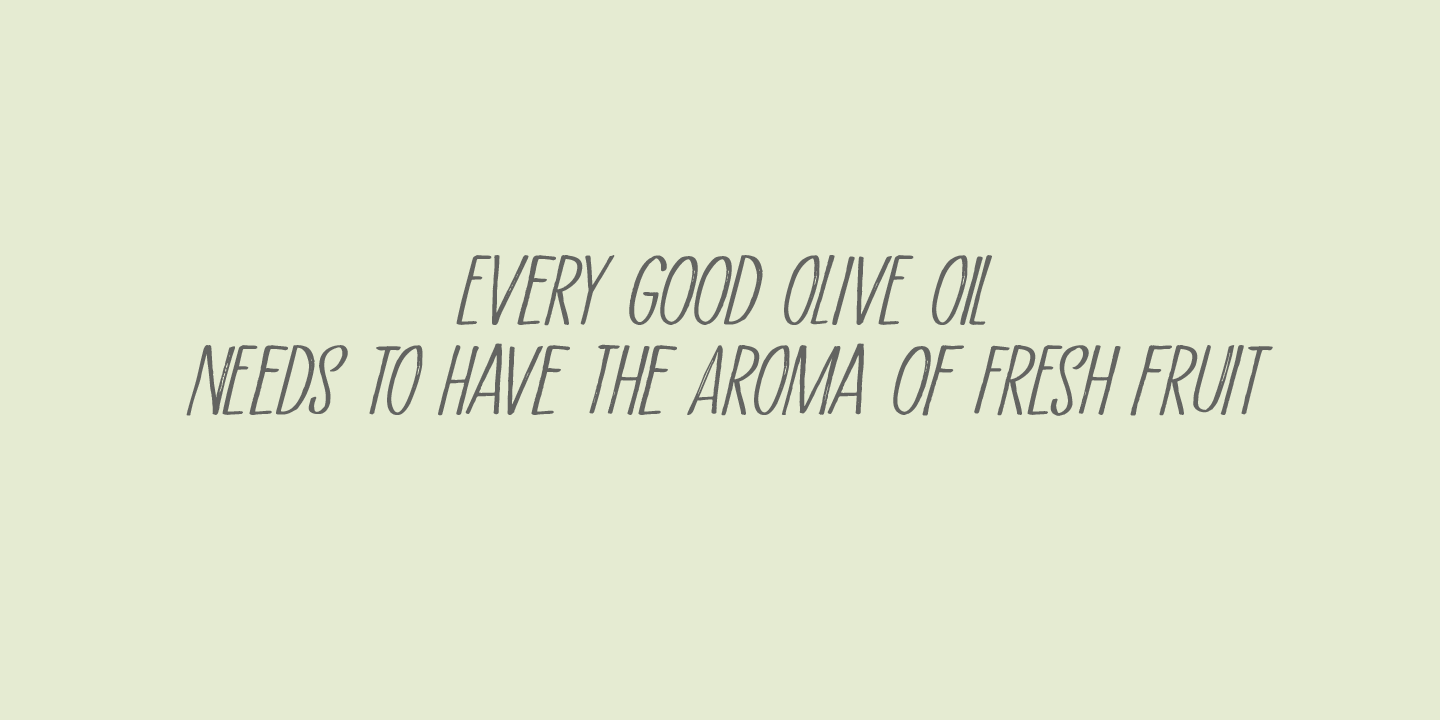
Aceituna Font is perfect for Mediterranean restaurant branding, organic olive oil packaging, rustic farm-to-table signage, Spanish cuisine marketing, artisanal food products, vineyard estate materials, traditional cooking blogs, olive grove tourism, authentic tapas bar menus, and any projects that need earthy typography with Mediterranean warmth and Spanish culinary heritage.
What makes Aceituna Font exciting is its authentic Mediterranean character that captures the sun-soaked warmth and rustic charm of Spanish olive groves with letterforms that embody the natural beauty and traditional craftsmanship of Mediterranean culture. This earthy typeface features organic characteristics with handcrafted warmth that evokes golden olive oil, terracotta pottery, and the timeless traditions of Spanish countryside living where every meal is a celebration of natural abundance. The font's Mediterranean character makes it perfect for food brands seeking to communicate authenticity, tradition, and the wholesome appeal of natural ingredients and time-honored culinary practices.
Aceituna Font family includes rustic style variations featuring light, regular, medium, and bold weights. The font family also offers handcrafted italic versions with enhanced organic flow, along with weathered variants that simulate natural aging. Special features include Mediterranean ornaments, olive branch symbols, and Spanish decorative elements that enhance the authentic countryside atmosphere of artisanal food design applications and traditional culinary branding.